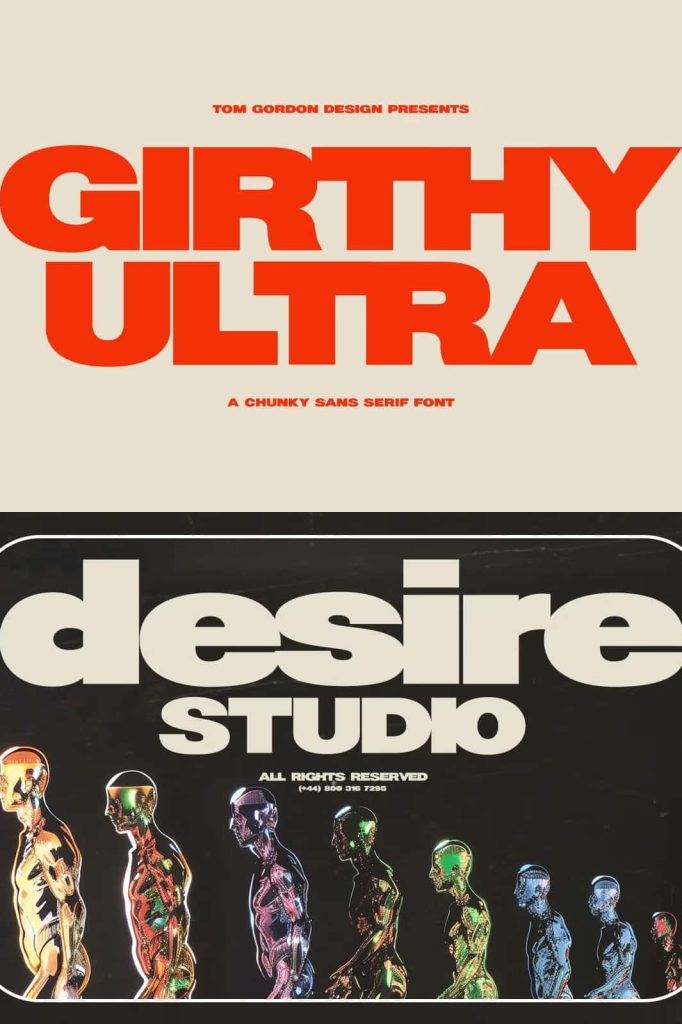
Girthy Ultra is my first Sans Serif font and is the perfect heavy display font! I wanted to make the most bold and legible typeface possible to rival other expanded fonts on the market.